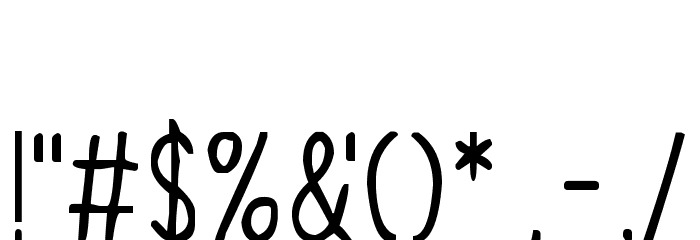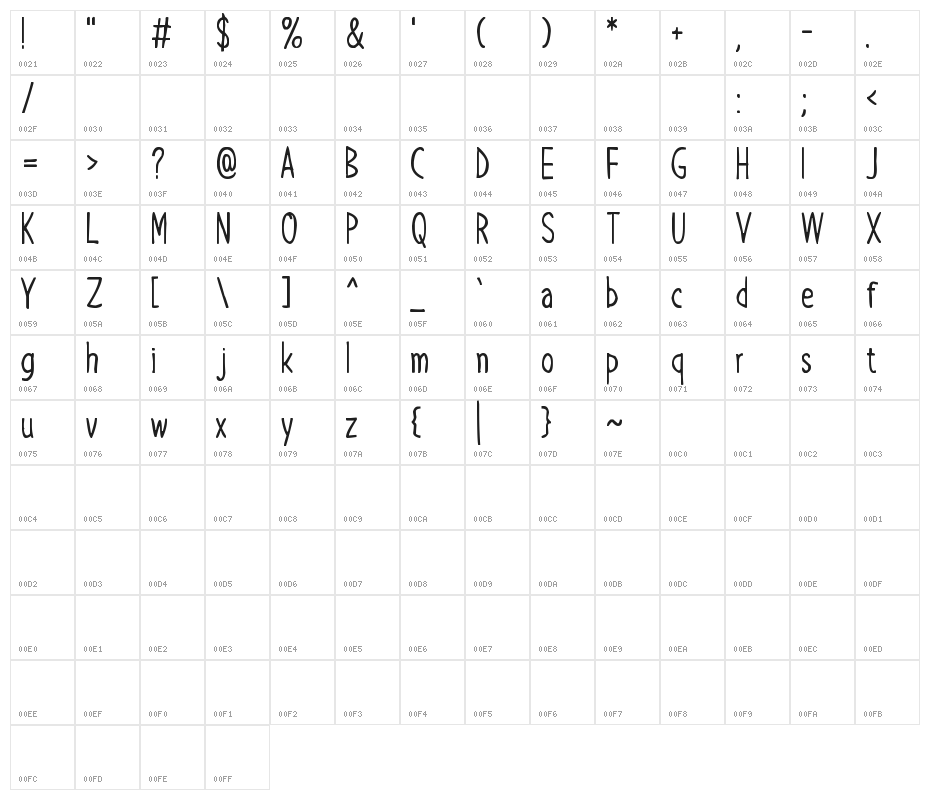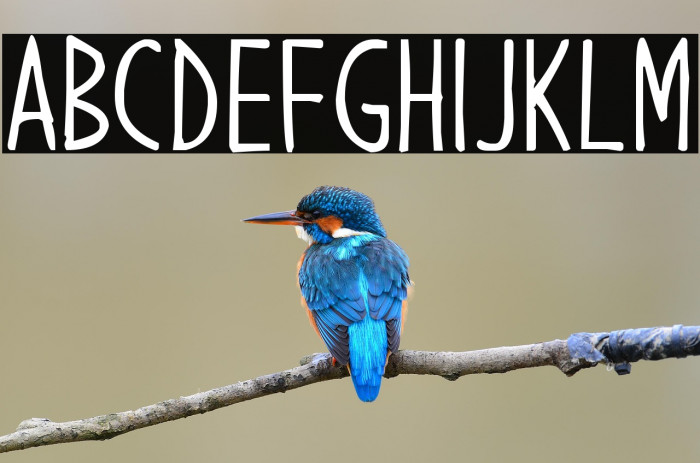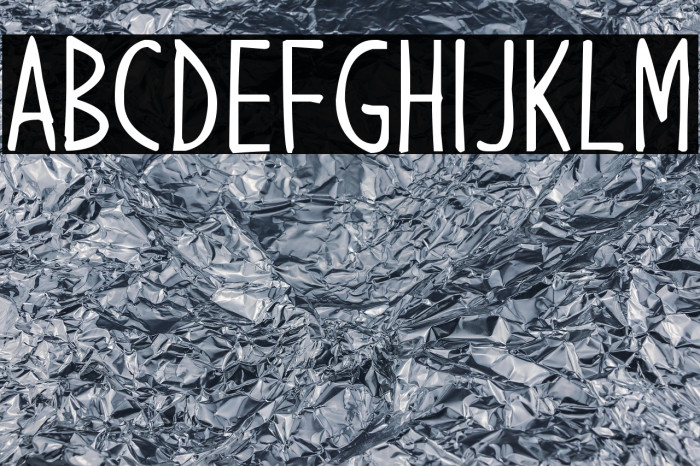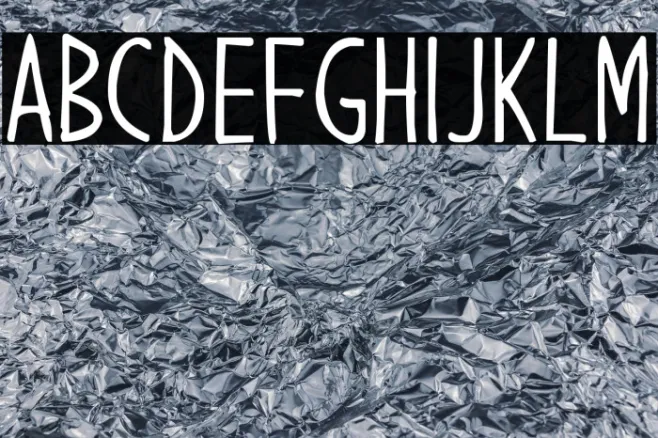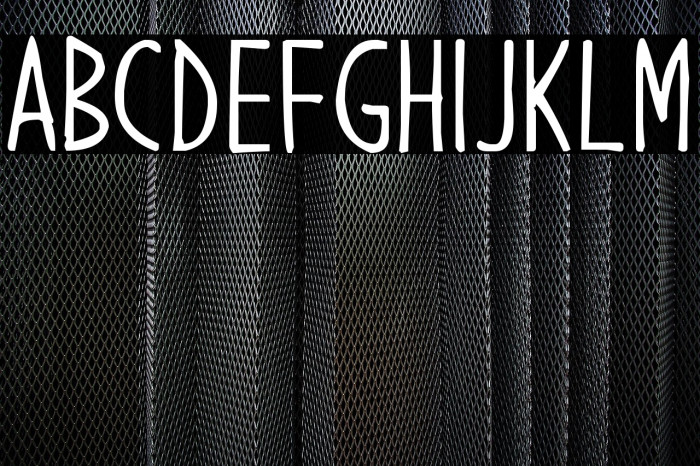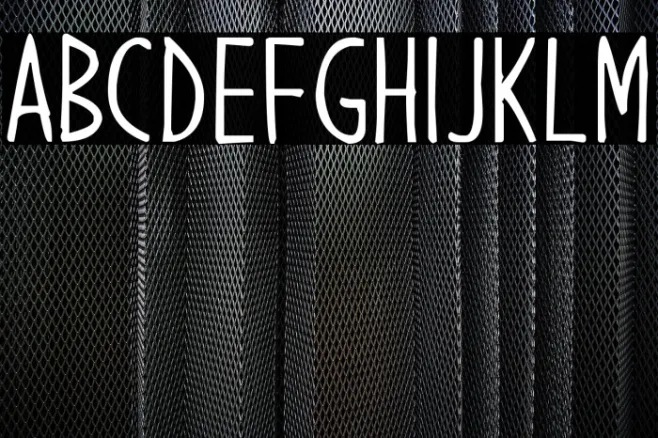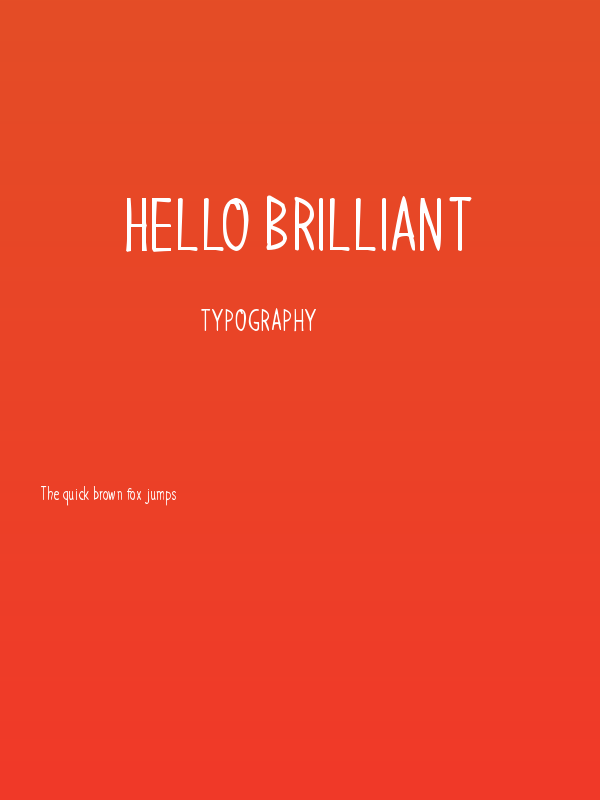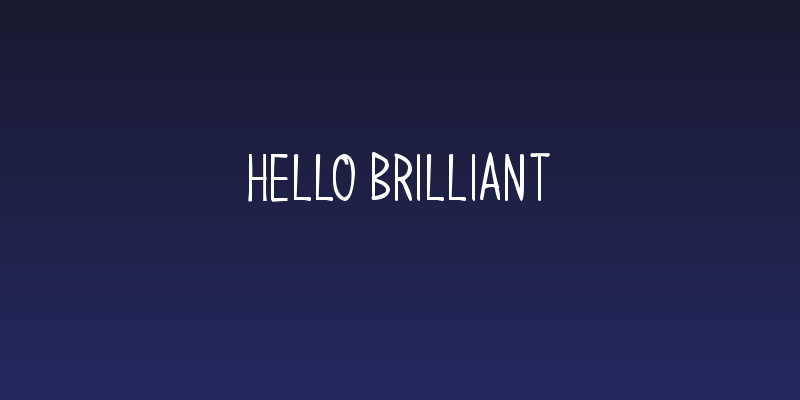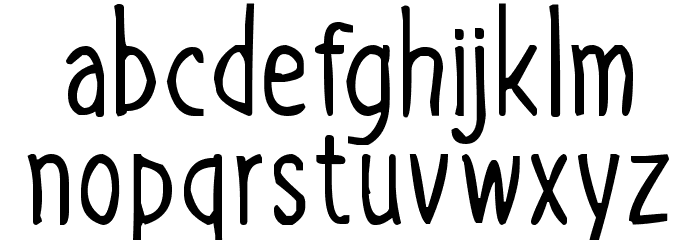
Hello Brilliant Font
Hello Brilliant Description
This font features a playful and informal style, characterized by its hand-drawn appearance. The letters are slightly irregular, adding a whimsical touch to the overall design. The uppercase and lowercase characters maintain a consistent height, with rounded edges and a friendly demeanor. The numerals and special characters follow the same playful aesthetic, making the font suitable for creative and casual applications. Its unique style stands out, making it ideal for projects that require a personal and approachable feel.
| Use Case | Headlines, Logos, Casual Text |
| Proposed Projects | Ideal for children's books, greeting cards, playful branding, and casual invitations. |